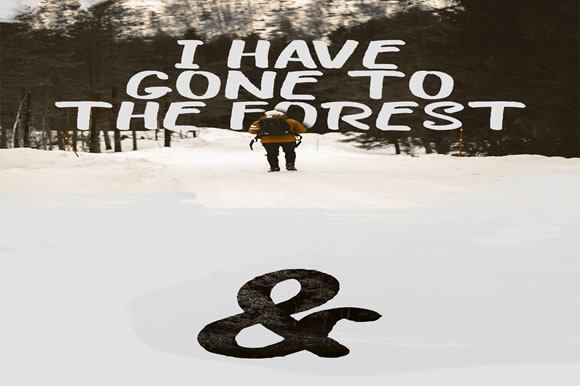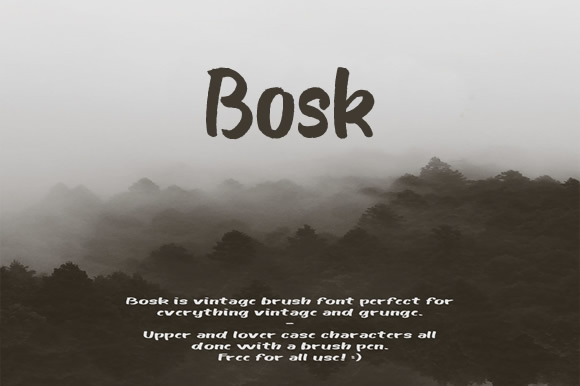
Bosk
About Bosk Font
The Bosk Brush font is a vintage handmade font created using a brush pen. It’s suitable for any project that needs a handmade and custom feel.